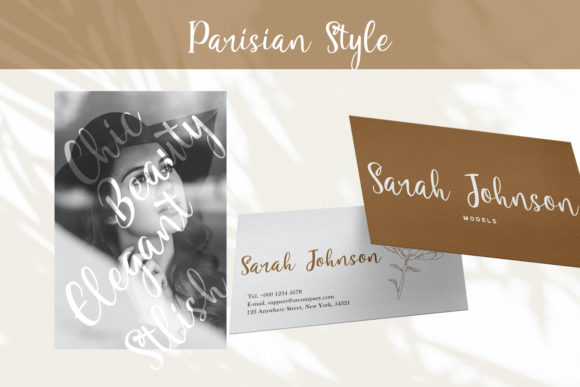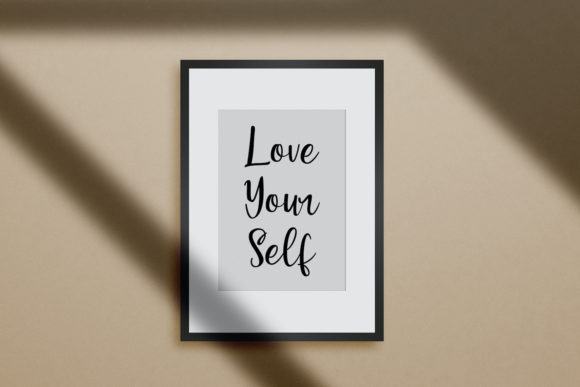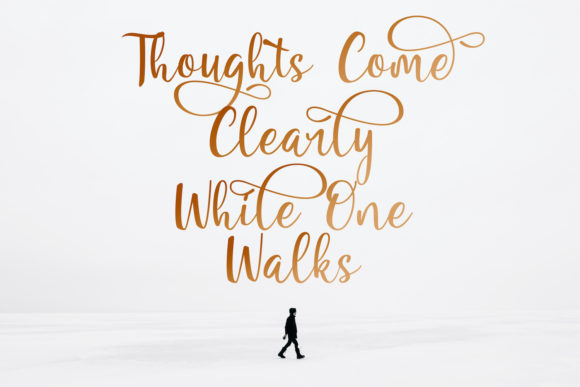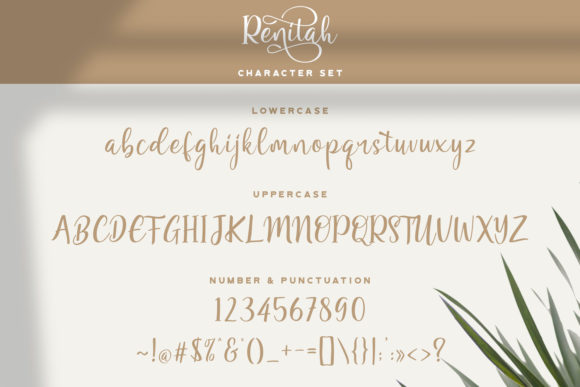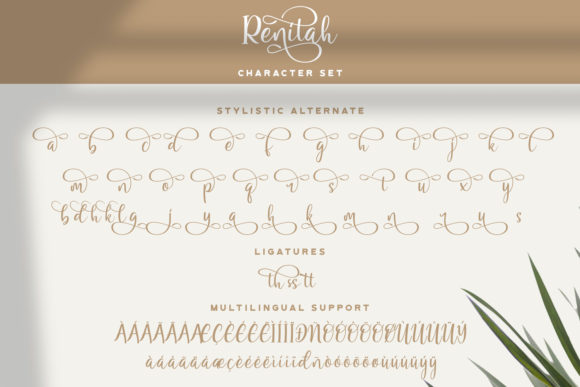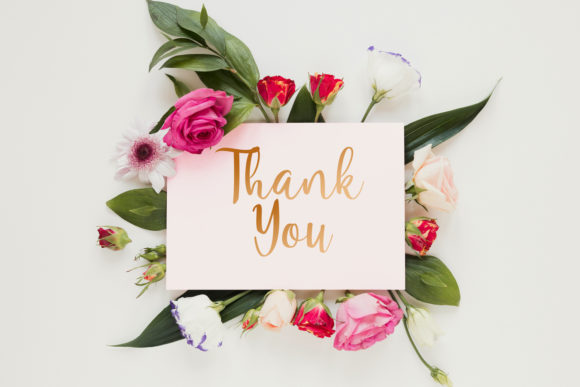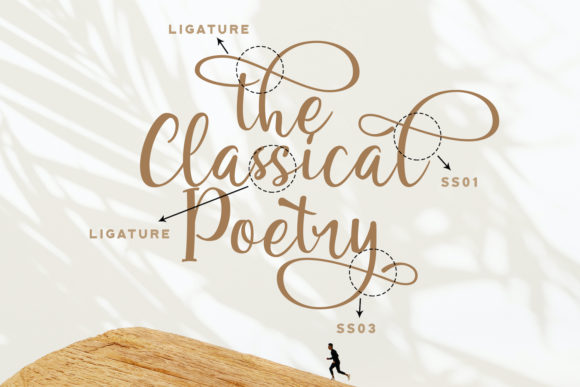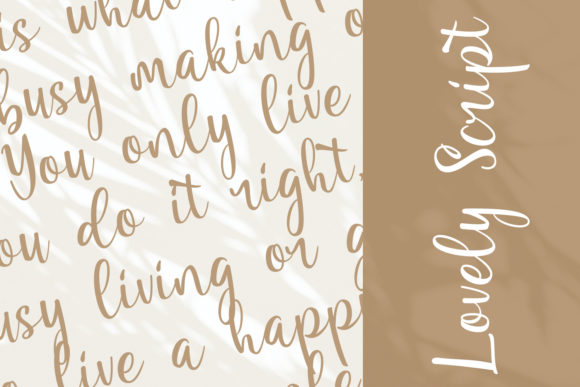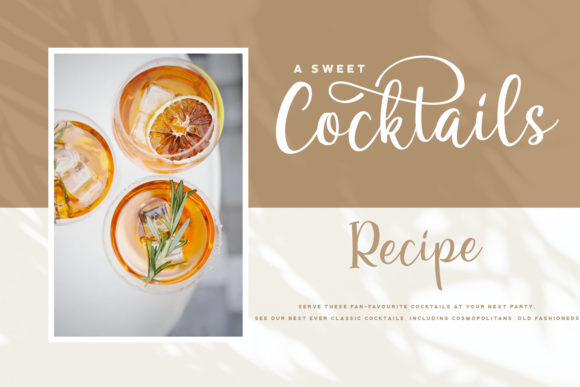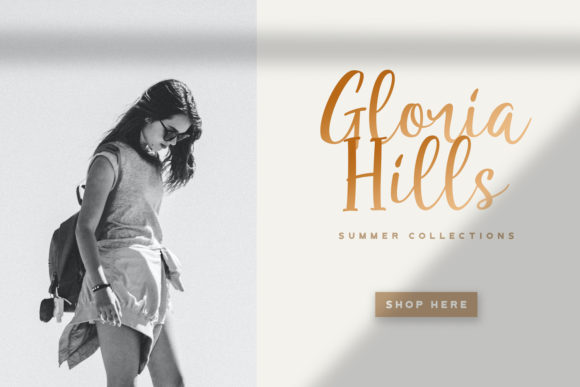
Renitah Font
About Renitah Font
Renitah is a gorgeous script font carefully created with a touch of elegance. This is a beautiful combination of timeless elegance and authentic calligraphy. It features an incredibly classic style, while still keeping a friendly feel.
Renitah is the perfect font for making original and outstanding designs.